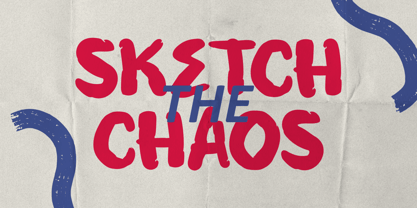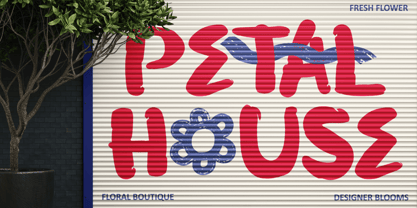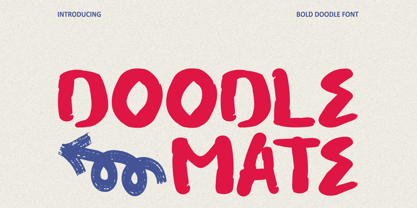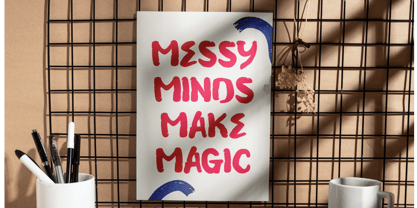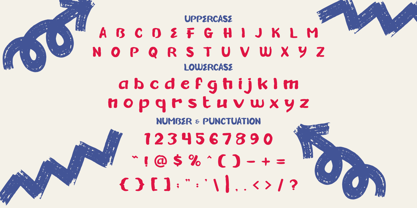
Doodle Mate
by Putracetol
The Doodle Mate Font Family was designed by Putra Novembria Candra Kusuma and published by Putracetol. Doodle Mate contains 1 styles. More about this family
Doodle Mate Doodle Brush Font is a lively and expressive typeface that captures the spirit of spontaneous creativity. Each letter is crafted with bold, thick strokes that mimic the organic feel of hand-painted brush lettering. The uneven edges and playful imperfections give the font a genuine doodle-like charm, making it full of movement and personality. Its rounded shapes, soft corners, and dynamic rhythm bring a casual yet confident visual energy. Doodle Mate Doodle Brush Font combines artistic boldness with a friendly tone—perfect for projects that need both strength and fun in their typography. Ideal for logos, posters, packaging, invitations, or creative branding, this font shines when used to make words feel alive. It fits perfectly in designs for handmade crafts, children’s products, or expressive advertising. The bold weight and brush-inspired texture make it stand out in headlines and display compositions, while still keeping a human touch. Doodle Mate Doodle Brush Font gives every project a lively hand-drawn aesthetic that feels personal and energetic. Whether for modern branding, DIY projects, or creative visuals, it adds the perfect balance between bold expression and doodle charm.
Designers: Putra Novembria Candra Kusuma
Foundry: Putracetol